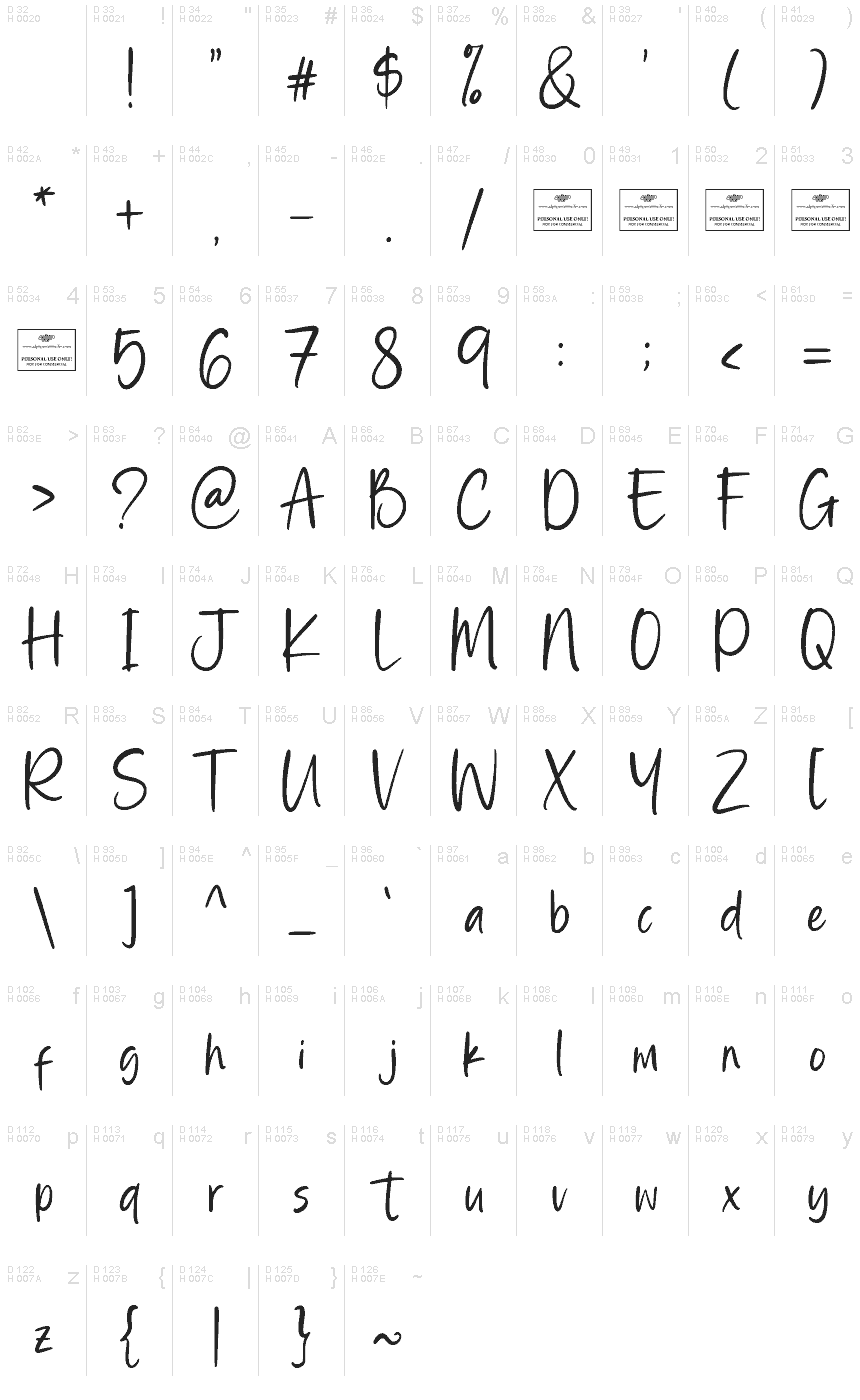
Ambridge
Ambridge font designed by Alpaprana Studio falls in the handwritten category along with its contemporary and expressive nature. Letters are not connected, and as a whole, this typography seems casual with inherent beauty. Additionally, delicate details in letter structures provide a more lively visual even further.
This free handwritten font can be used for name design, quotes, posters or flyers, business cards or stationery products. It will naturally go great on invitations such as wedding ones and other event designs like baby showers too. Even journal design is allowed!